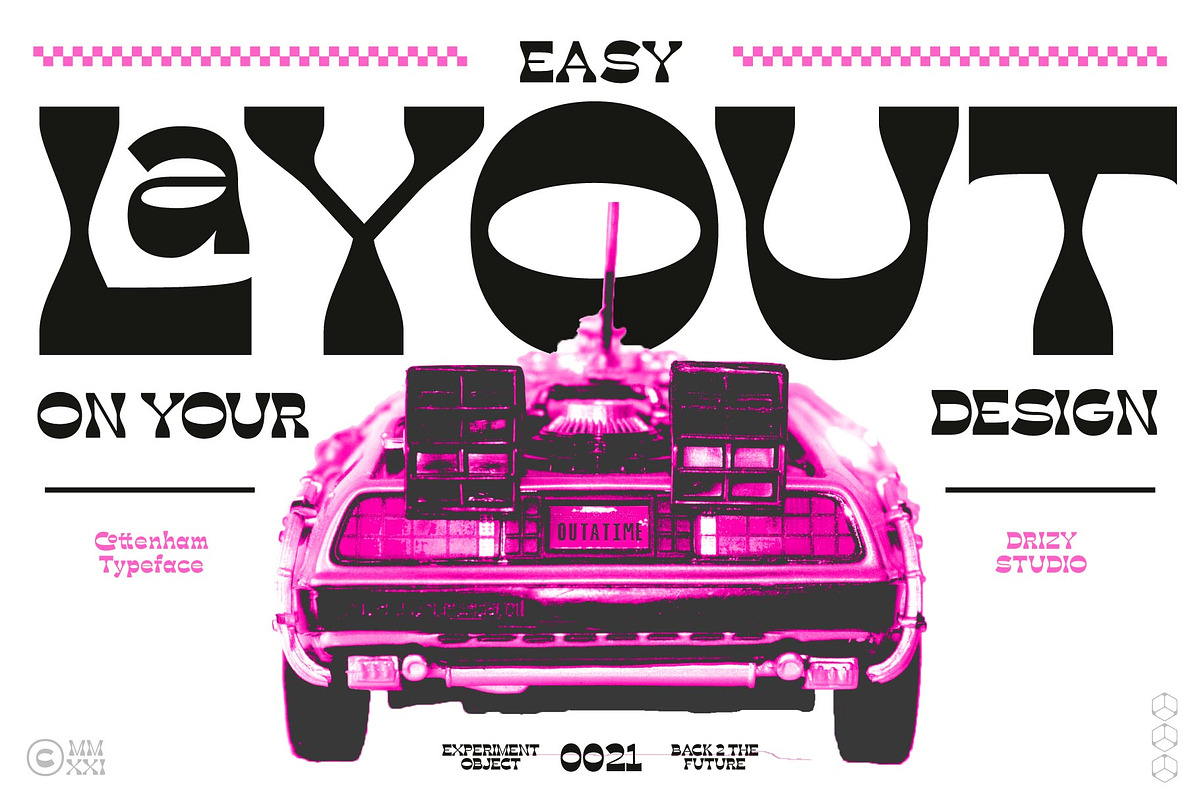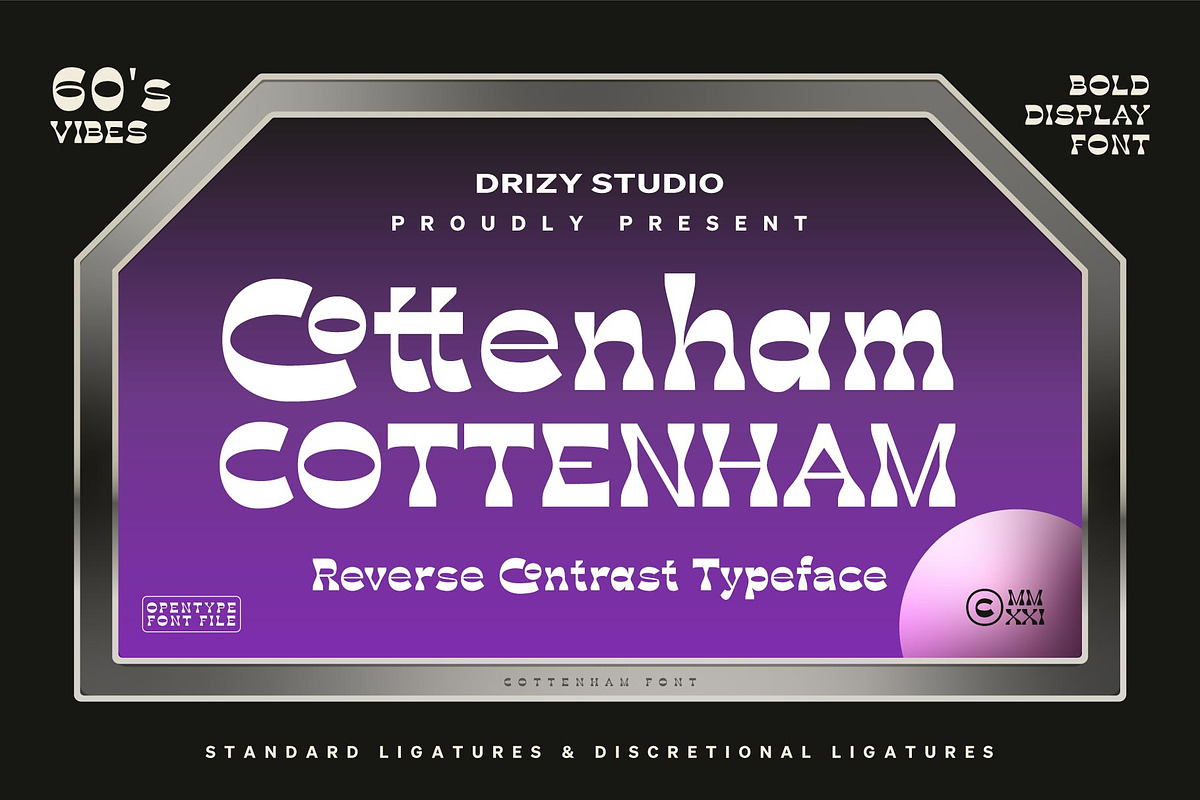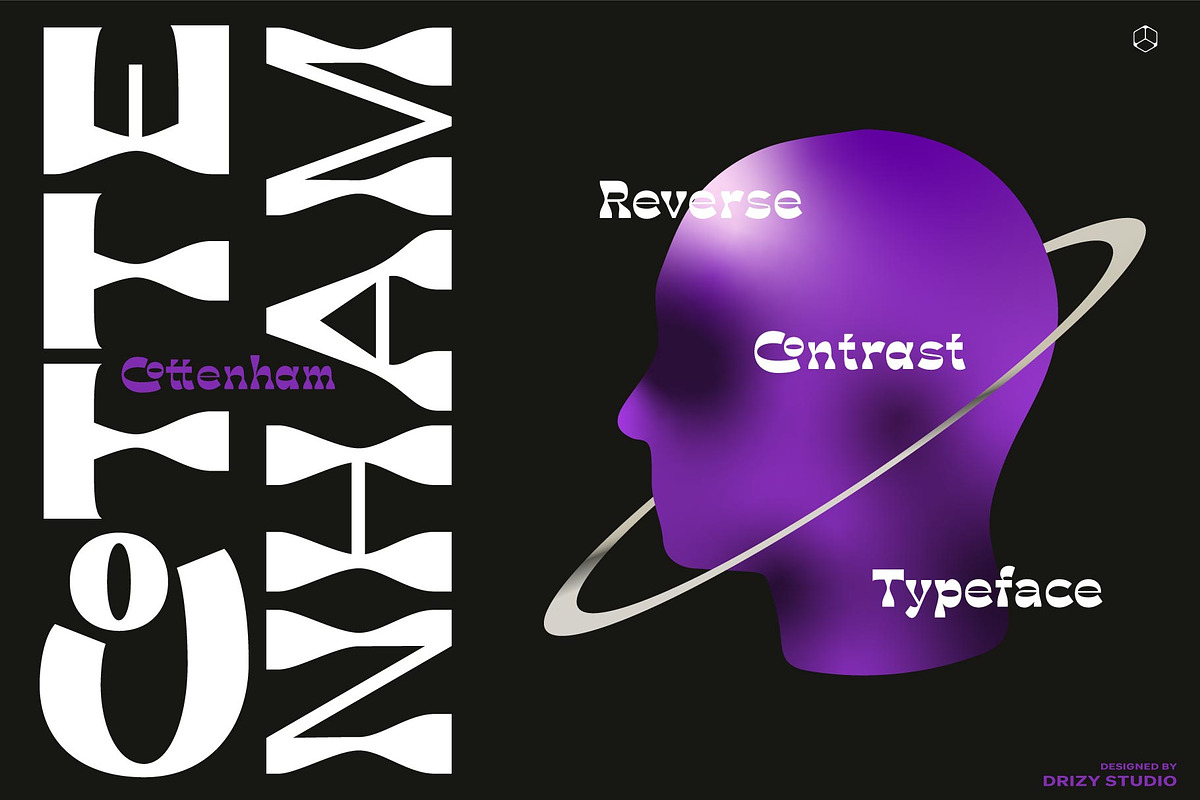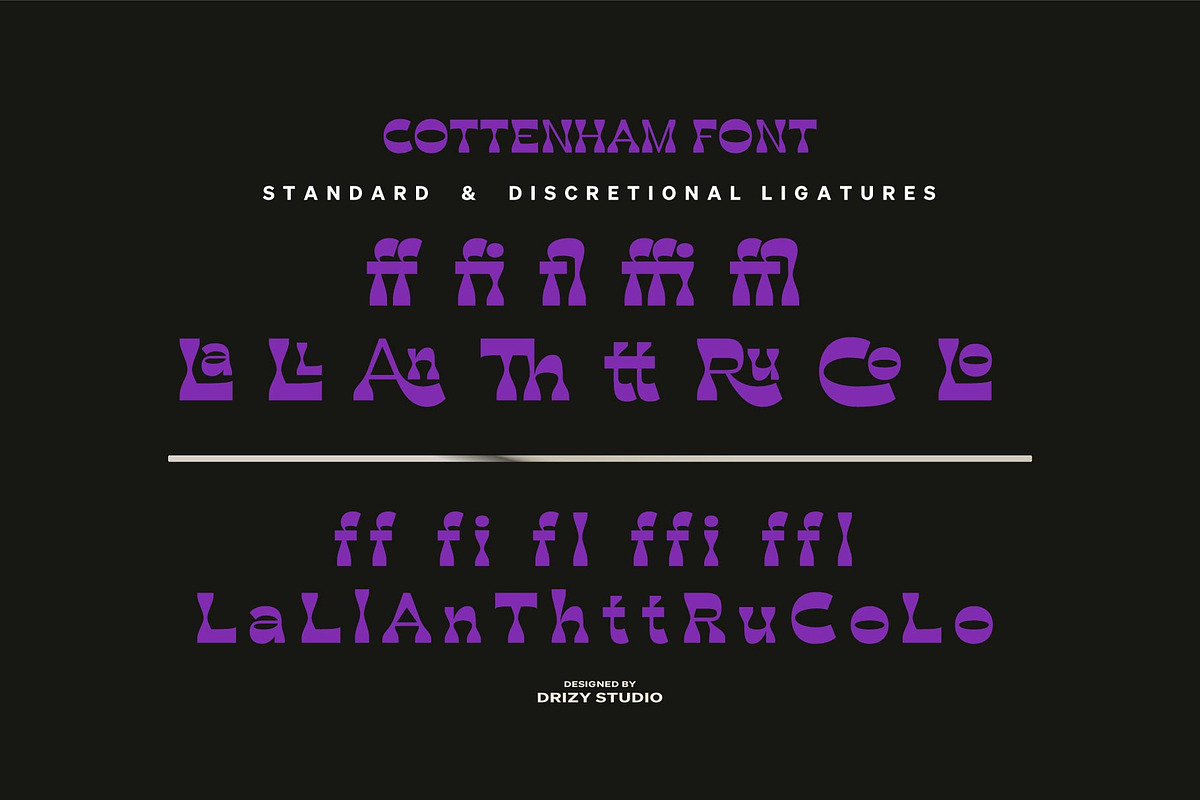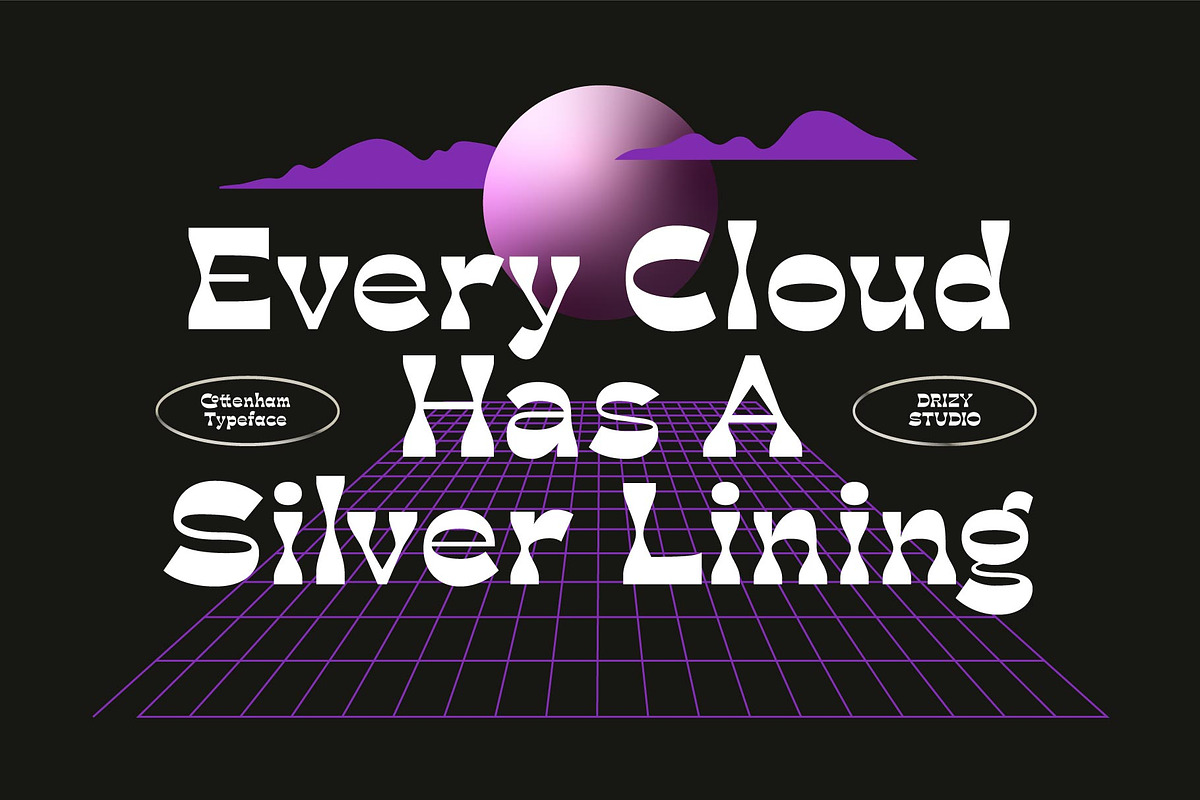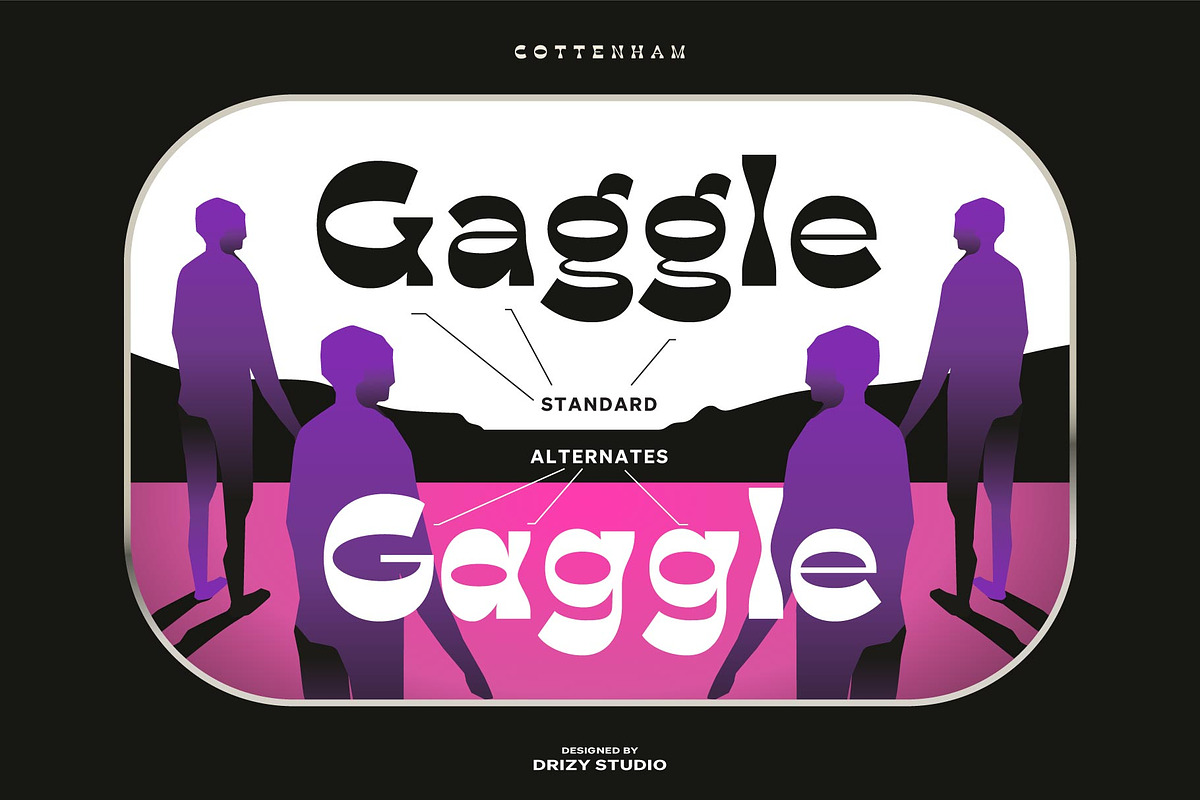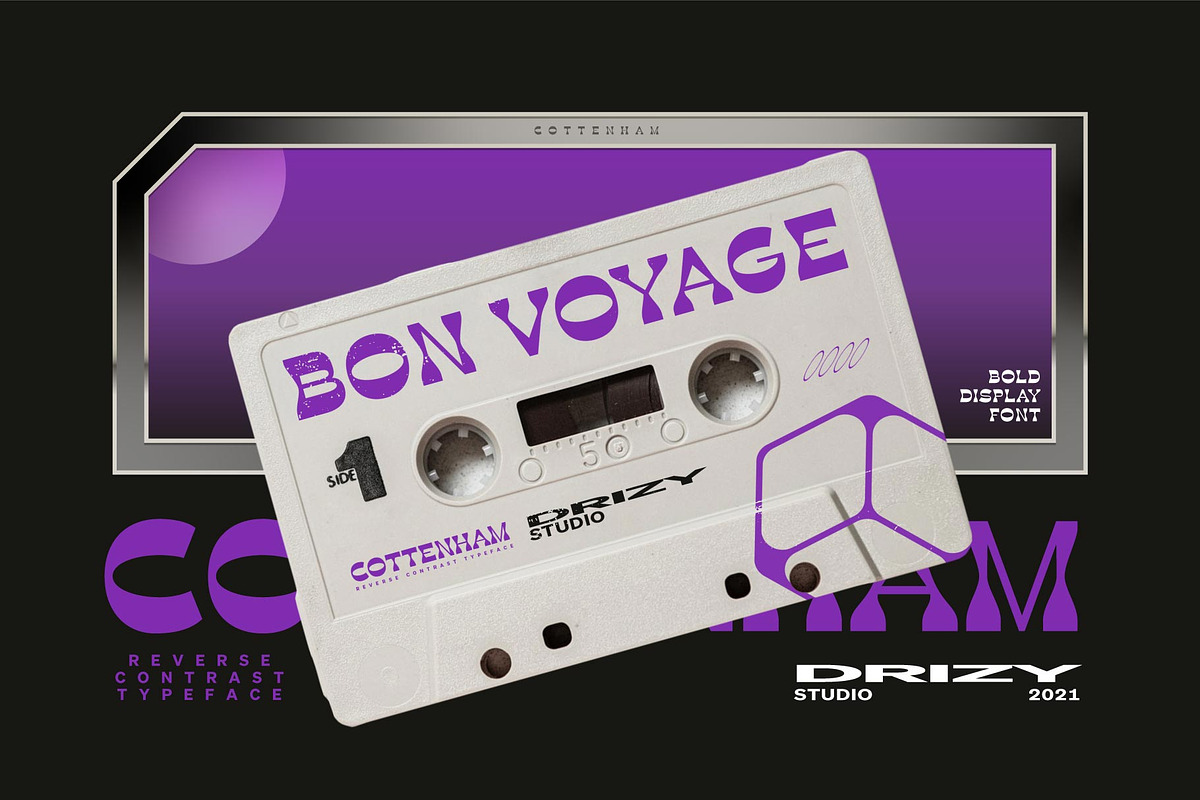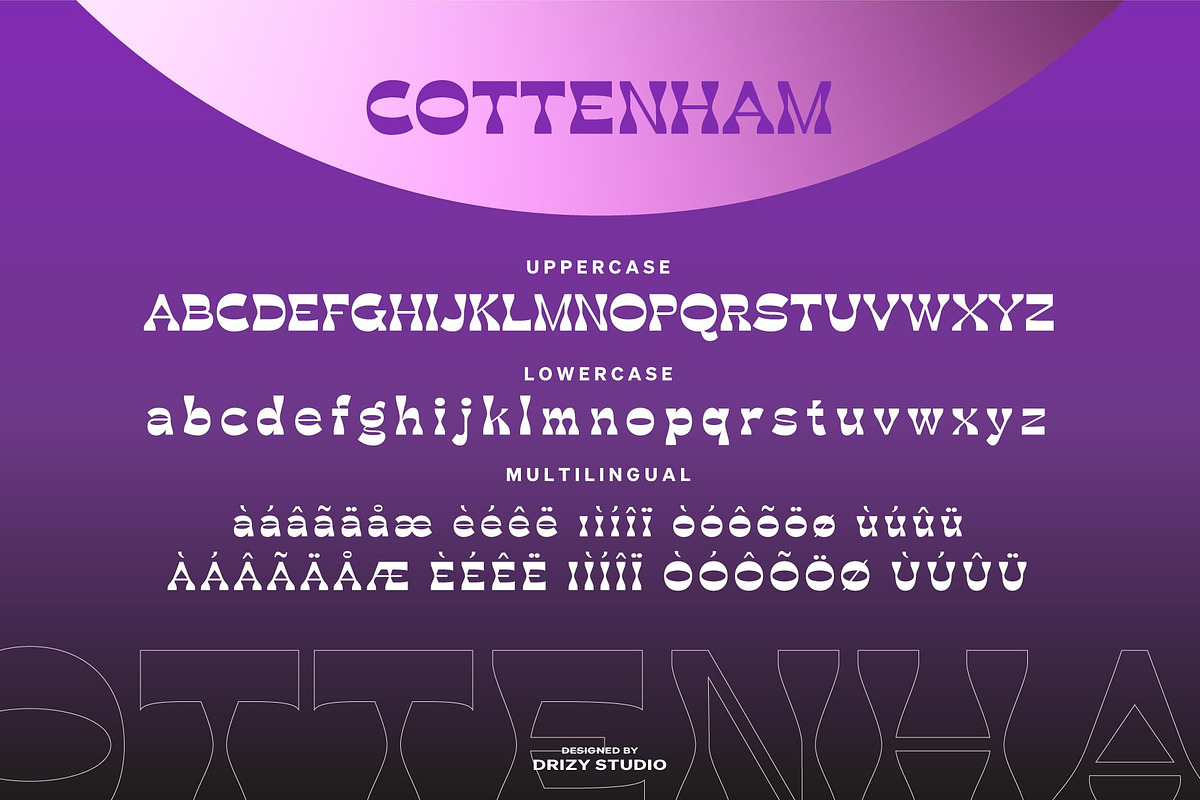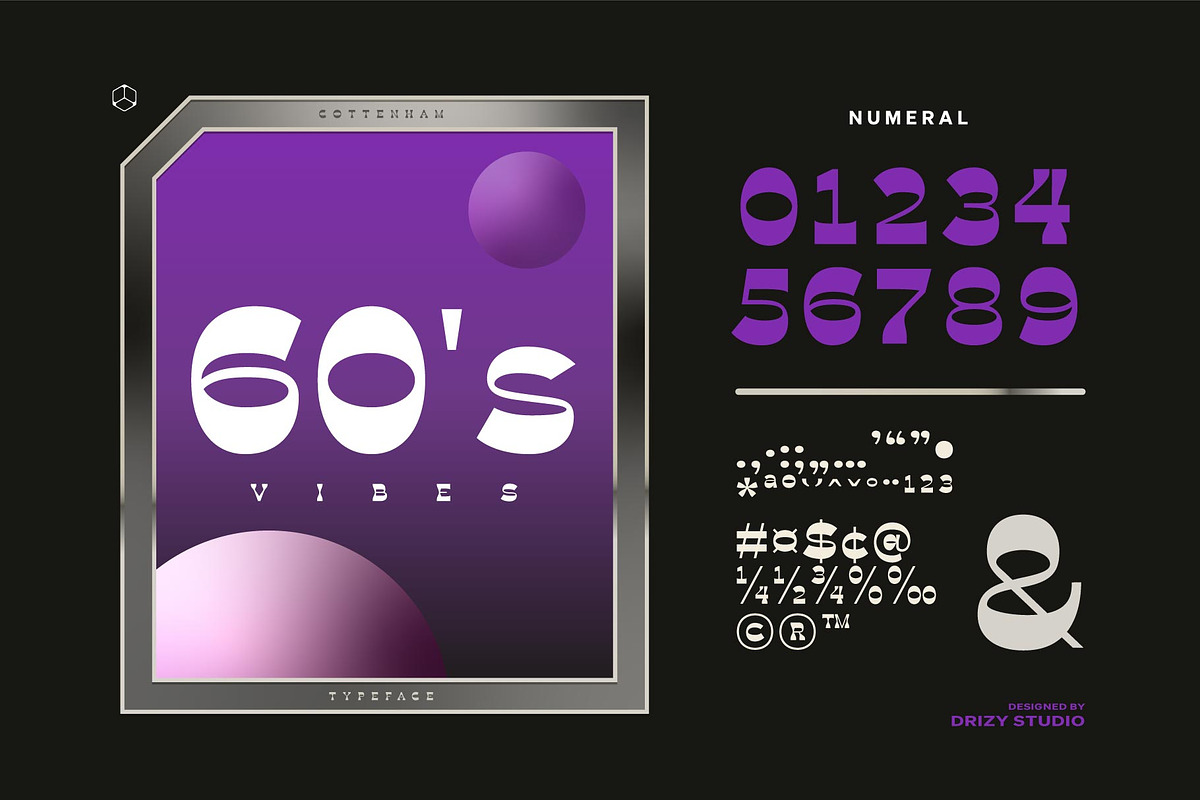
Cottenham
Cottenham Reverse Contrast Typeface, is a Display font special for unique futuristic theme. Offering all the basic styles you will need for a successful project.
Cottenham Features: